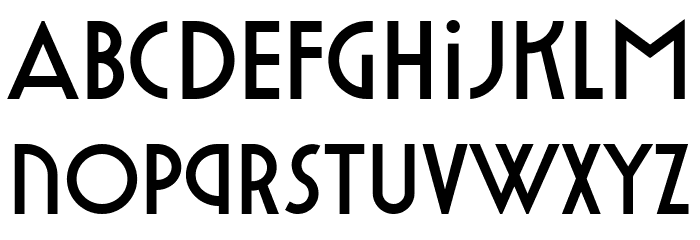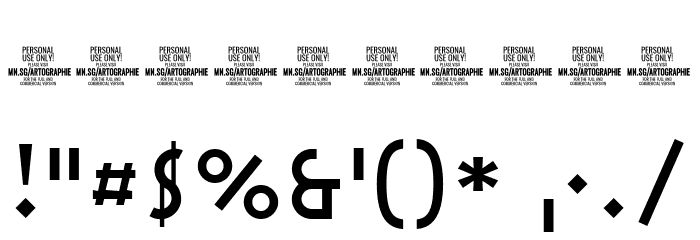
Artographie Medium Font
This font features a geometric and modern design with clean lines and sharp angles. The uppercase letters are bold and assertive, while the lowercase letters maintain a consistent style with slightly softer curves. The numerals are clear and easy to read, matching the overall aesthetic of the font. Special characters are well-integrated, providing a cohesive look across all glyphs. The font's structure is balanced, making it suitable for various design applications where a contemporary and stylish appearance is desired.
A geometric and modern font with clean lines and sharp angles.
- Proposed Projects: Ideal for branding, advertising, posters, and modern web design projects.
- Use Case: Headlines, Logos, Branding